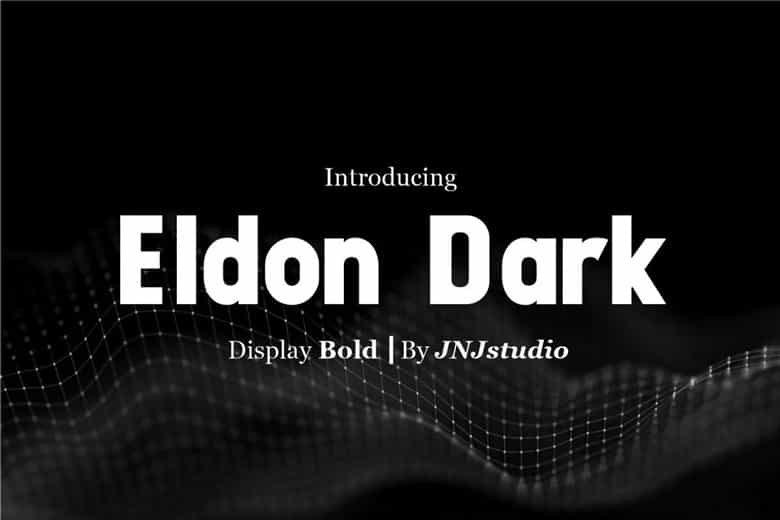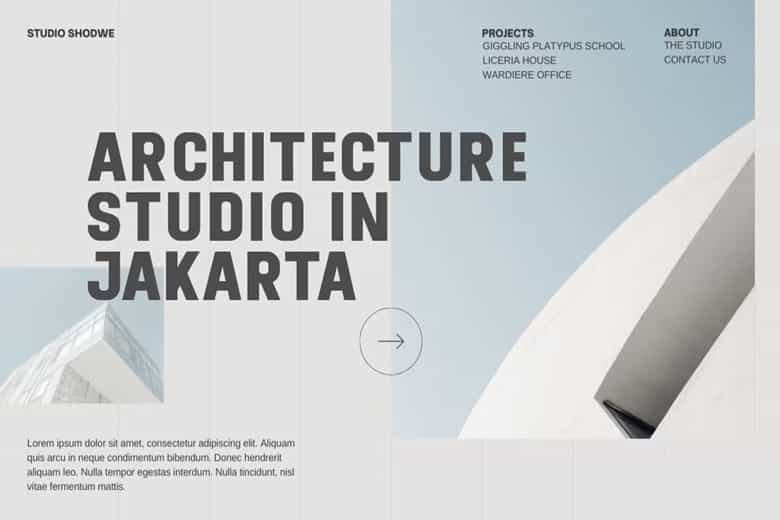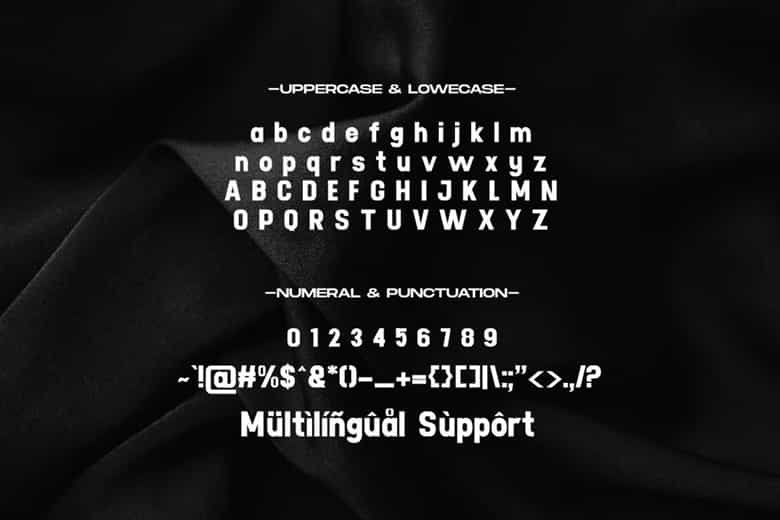
Eldon Dark is a display sans serif font that is best known for making a strong statement. This font is very business like with its clean and simple design and strong geometric shapes. Sturdy and boxy, the font is ideal for headlines, posters and logos, which need to be seen and noticed. The design has both angles and curves, but it never feels muted or tame – it has a very clear identity.